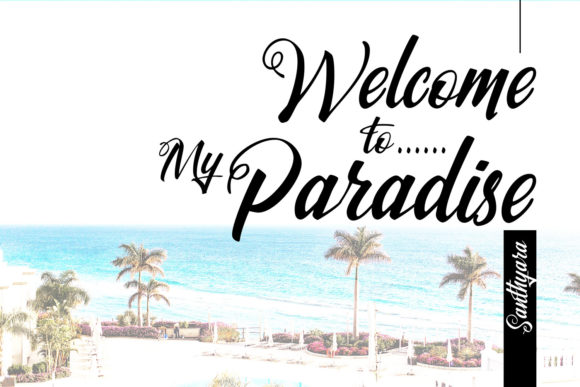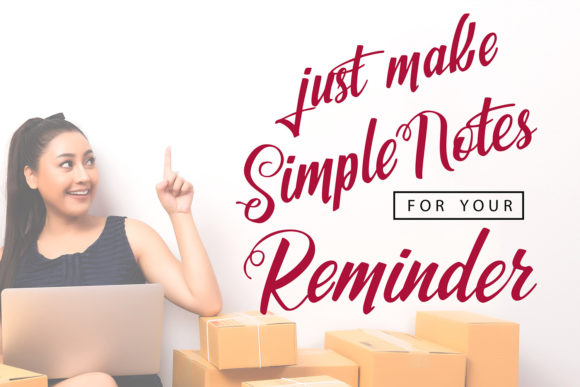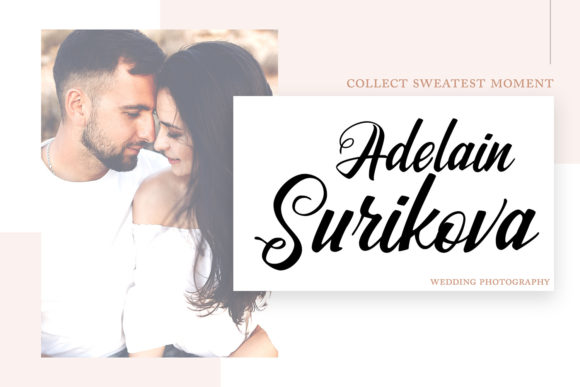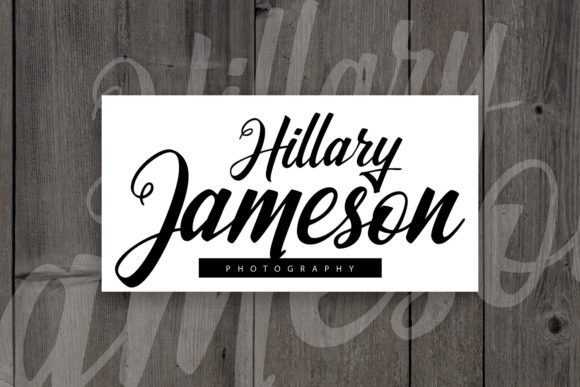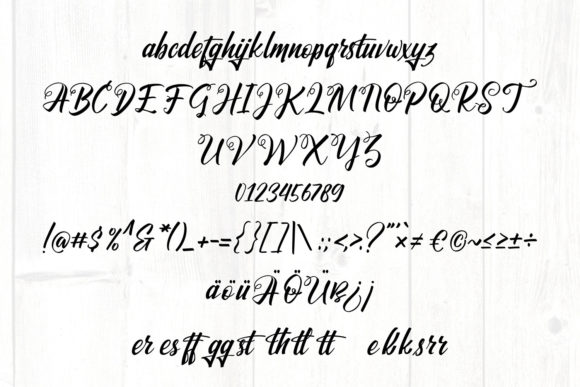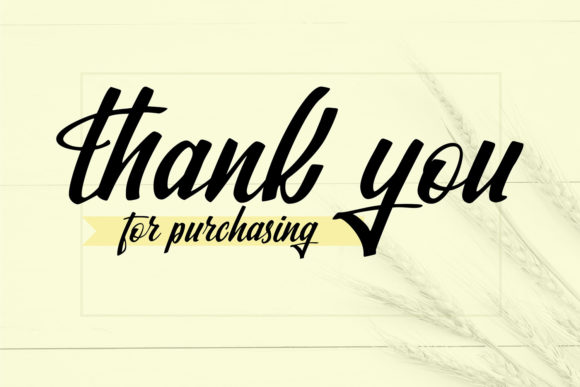
Introduction to Santhyara Font
As you sit in front of your computer, staring blankly at a blank canvas, the creative wheels start turning. You envision a beautiful design, one that showcases your unique style and creativity. But, the right font can make all the difference. That’s where the Santhyara Font comes in – a game-changing design resource that will elevate your projects to new heights.
With its exquisite handwritten style and classy calligraphic influences, the Santhyara Font is the perfect addition to any creative project. Whether you’re designing a logo, a brochure, or a social media graphic, this high-quality font is sure to make a statement. And the best part? It’s free to download, making it an accessible design resource for designers of all levels.
Key Features of Santhyara Font
- High-quality design resource ideal for creative projects and professional applications.
- Includes a wide range of characters and glyphs, making it a versatile design resource.
- Unique characteristics include a modern and elegant aesthetic, perfect for branding and typography projects.
Honest Review: Santhyara Font
I recently stumbled upon the Santhyara Font while searching for a unique design resource for a creative project. The font’s high quality and sleek design caught my attention, and I was excited to try it out.
- Modern aesthetic
Using Santhyara Font in Design Projects
To get the most out of the Santhyara Font, use it with a transparent background to create visually appealing designs. Experiment with different font sizes, colors, and combinations to find the perfect look for your project.
The Santhyara Font is ideal for use in various design projects, including business cards, brochures, posters, and social media graphics. Its high-quality design and transparent background make it a popular choice among designers.
Yes, the Santhyara Font is perfect for high-quality creative projects, such as graphic design, branding, and digital art. Its high-quality design and transparent background make it ideal for use in various design applications.